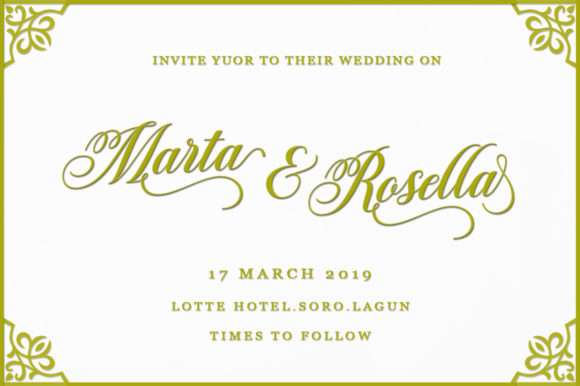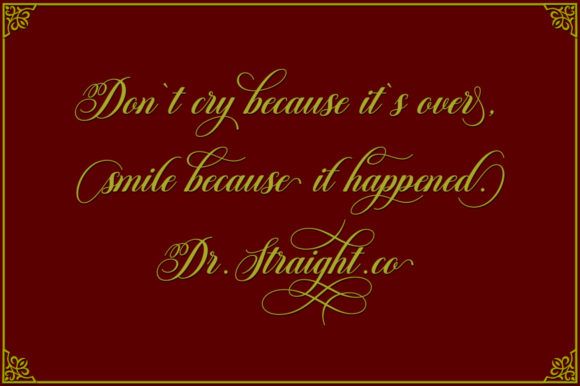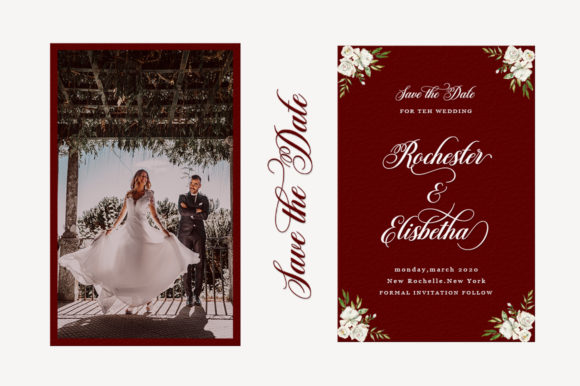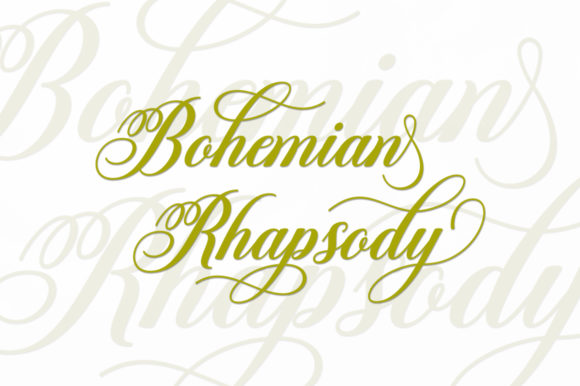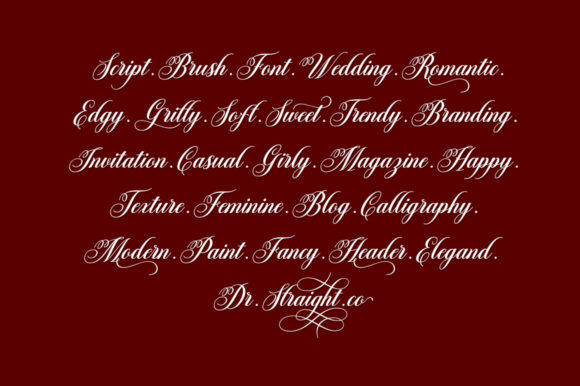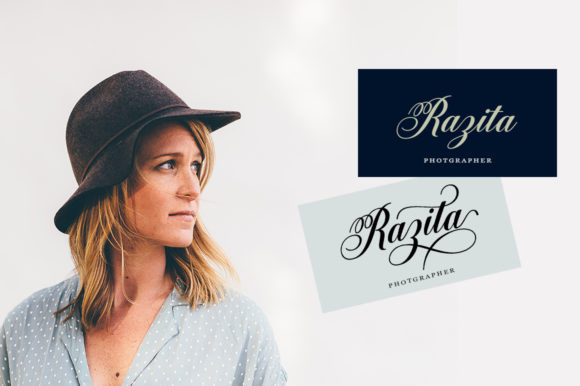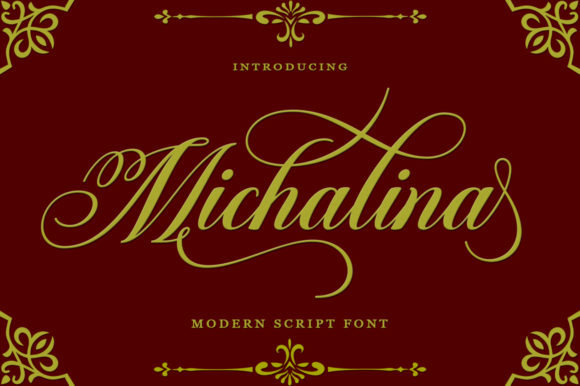
HomeScript FontsMichalina Font Script Fonts Michalina Font FacebookXPinterestWhatsApp Michalina Font Poster 2 Michalina Font Poster 3 Michalina Font Poster 4 Michalina Font Poster 5 Michalina Font Poster 6 Michalina Font Poster 7 Michalina Font Poster 8 About Michalina Font Michalina is a sweet and charming script with beautiful swashes. Fall in love with its modern elegance. DOWNLOAD NOW People also explored Oturllis Font Bucharest Font Ferguson Family Francella Font Sweet Cheeks Font Pietra Font Hearty Morning Font Whitney Font Signatria Font 306 0 TagsMichalina Font Previous articleHisteria Script FontNext articleDecafe Font LEAVE A REPLY Cancel reply Comment: Please enter your comment! Name:* Please enter your name here Email:* You have entered an incorrect email address! Please enter your email address here Website: Save my name, email, and website in this browser for the next time I comment. Personal Use Free Anders Personal Use Free Read more about this font Creativo Personal Use Free Read more about this font Cleopatra Font Personal Use Free Read more about this font Avagan Personal Use Free Read more about this font BLOG Free Fonts Risk: Why Free Fonts Can Be Dangerous for Designers Free Fonts Risk: Why Free Fonts Can Be Dangerous for Designers Using free fonts is a common practice in web and graphic design. However, the... Top 10 Handwritten Fonts That Elevate Your Designs Best Fonts for T-Shirt Design – Top 2025 Picks Best Fonts for YouTube Videos: Make Your Thumbnails Stand Out